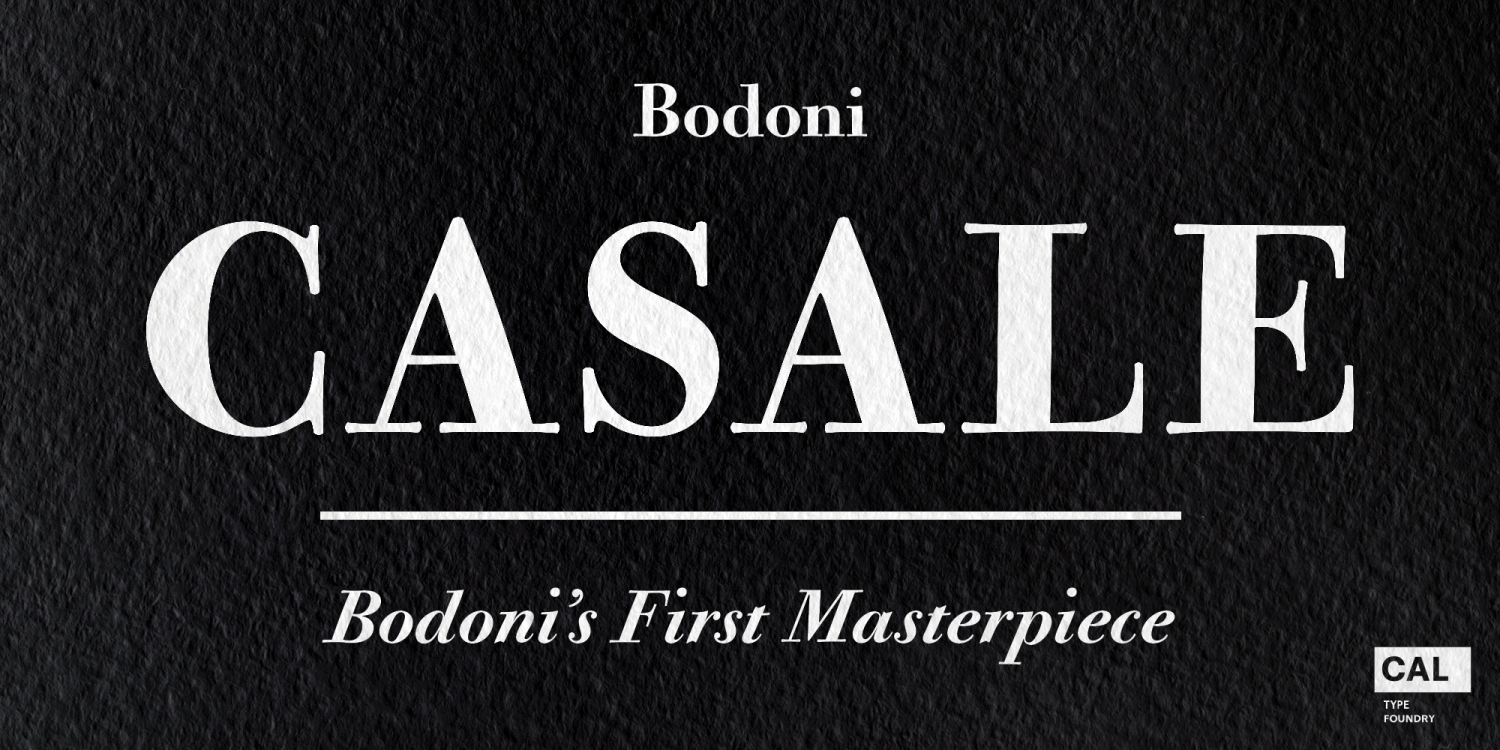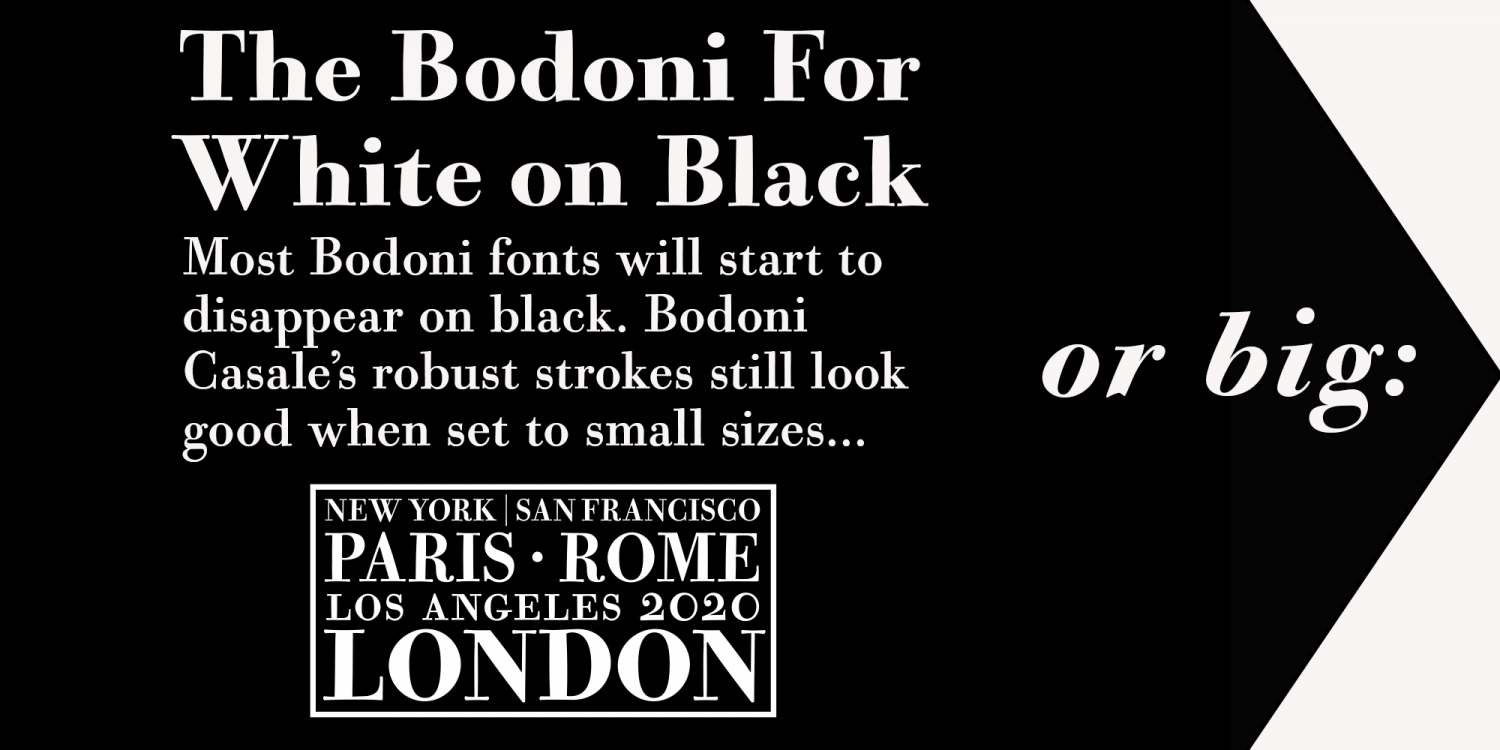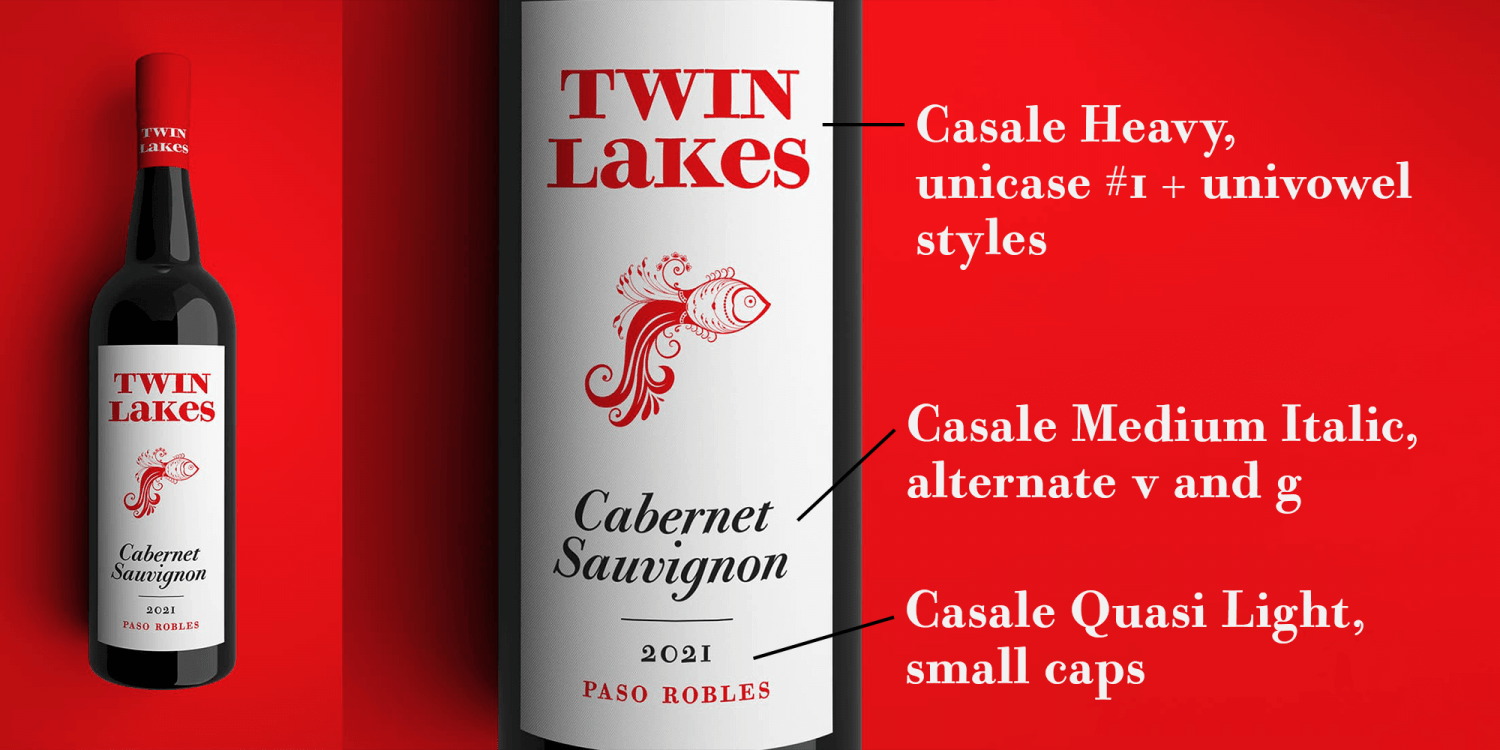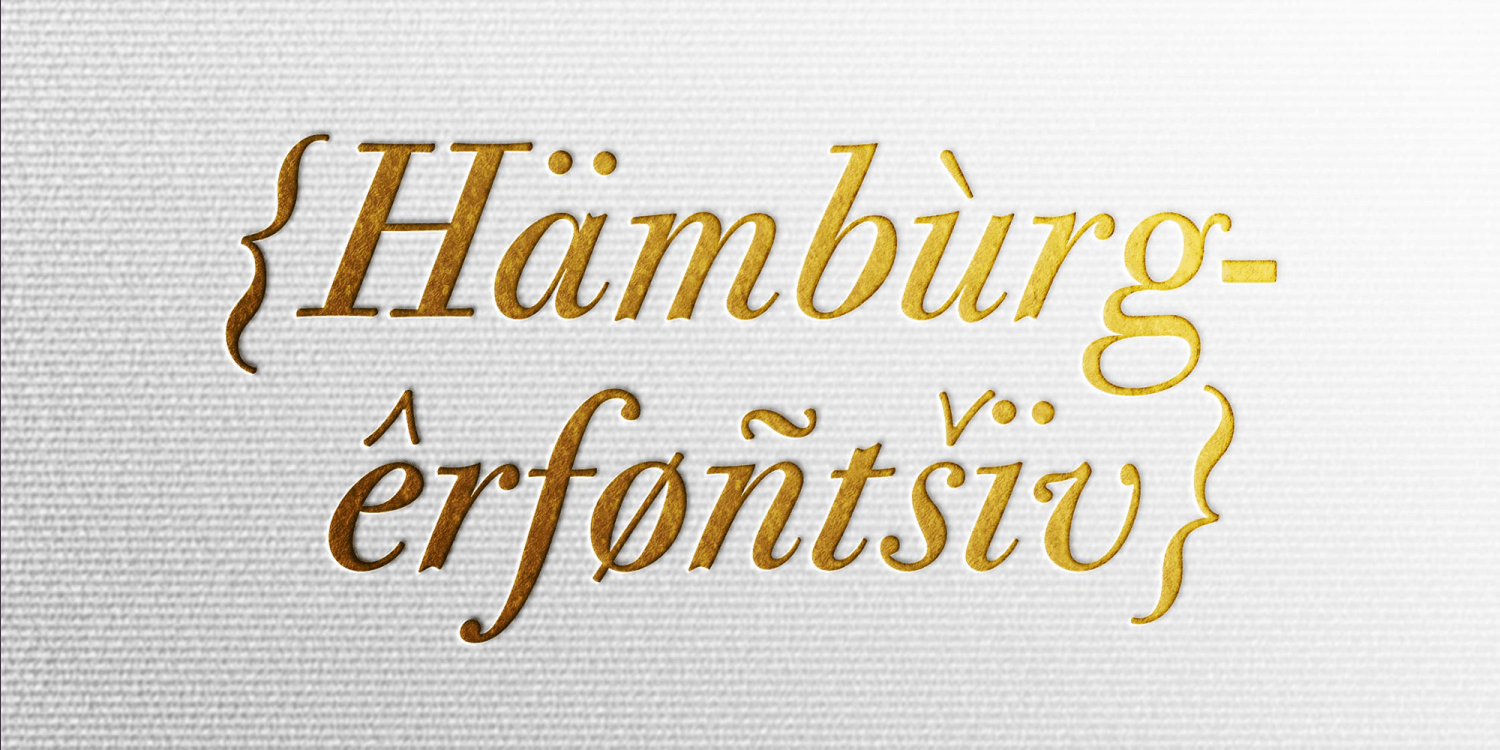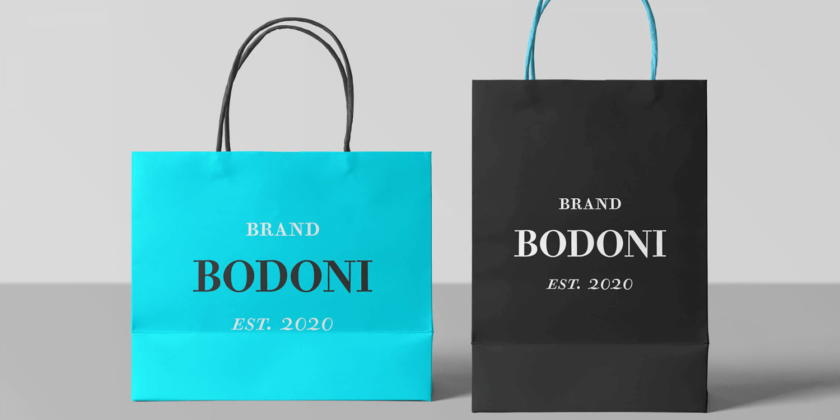
About Bodoni Casale
This typeface has been beloved throughout history. Bodoni used it to print his first masterwork, but it has never before been publicly available. Now available for the first time, CAL Bodoni Casale has been painstakingly crafted from hi-res scans of 4…